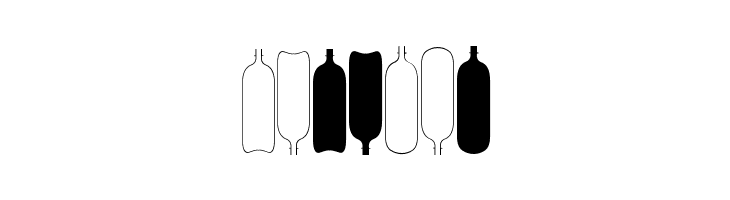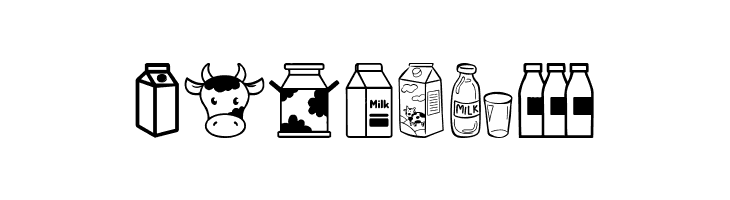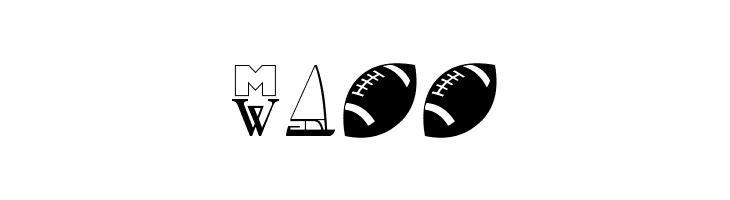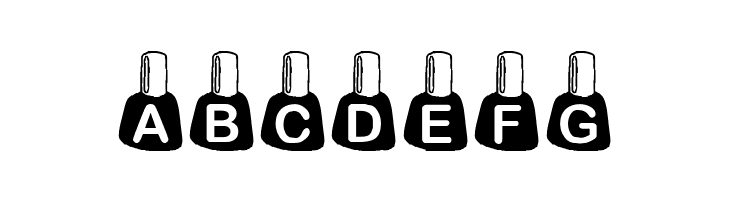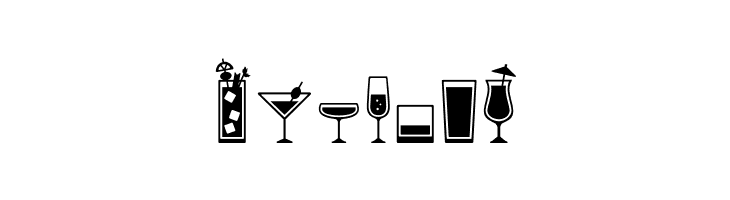
A dairy-themed dingbat font with bold, cartoon-style milk and farm icons.
A whimsical dingbat font with diverse pictograms and stick figures.
A decorative font with uppercase letters in nail polish bottle shapes.
A bold, modern collection of drink-themed icons in black silhouette style.
Icon-based decorative font themed around water rockets and related objects.
Pirate-themed decorative dingbat font with detailed icons.
A decorative font with characters illustrated as various alcoholic beverages.